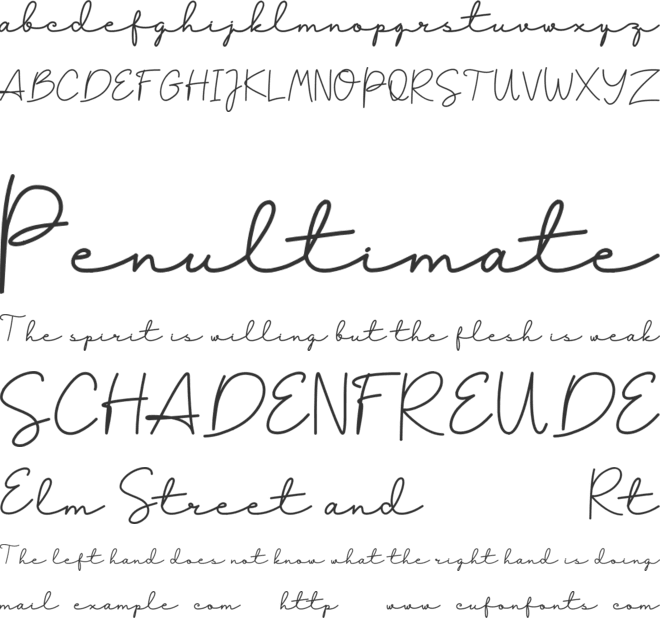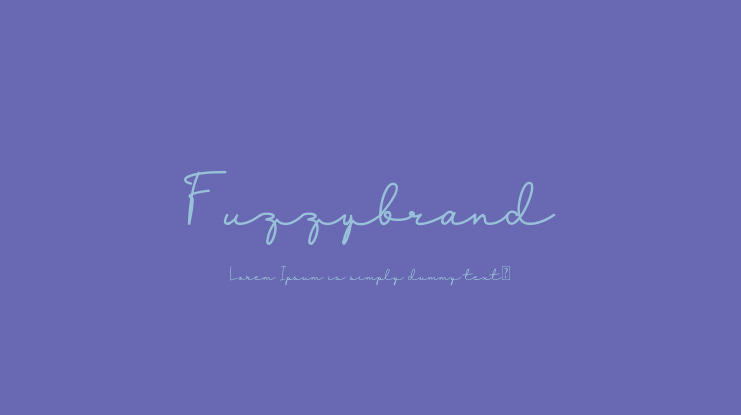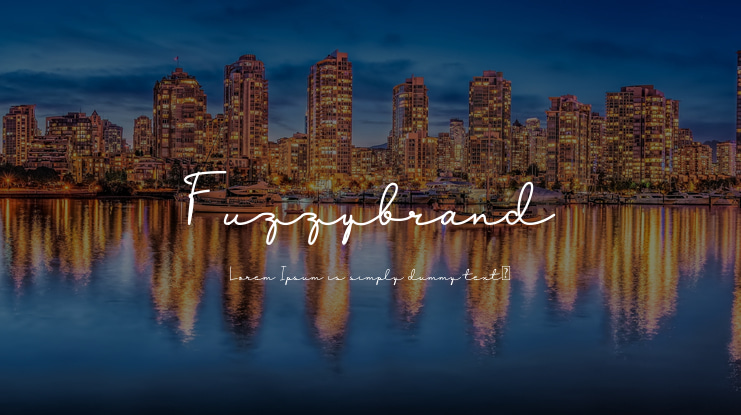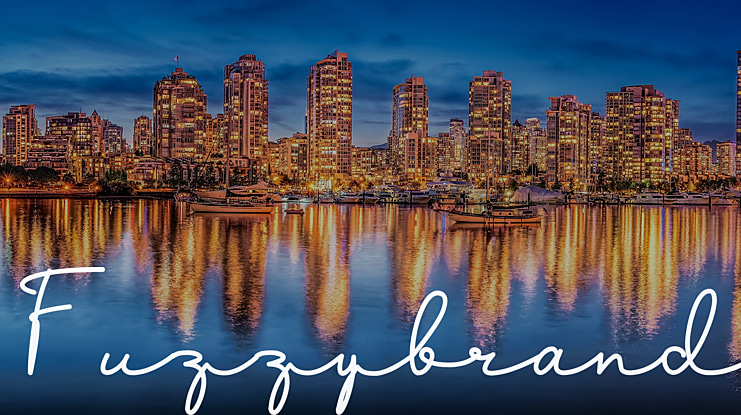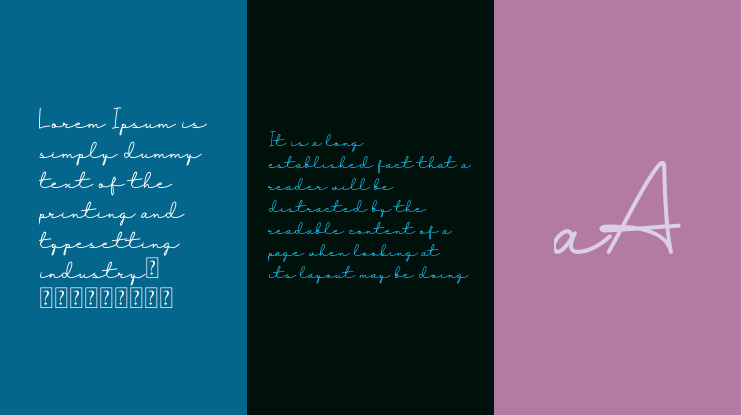
Fuzzybrand Font
Hello, Introducing Fuzzybrand Font. With a classy and natural handwritten style, it brings a classy and chic typeface. Fuzzybrand is best used for branding, logotype, quotes and etc . For commercial use you can buy www.creativefabrica.com/product/fuzzybrand/